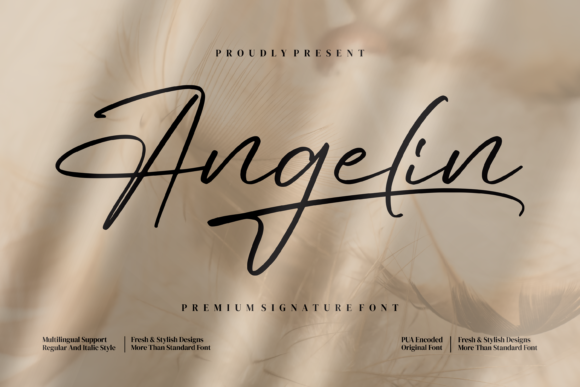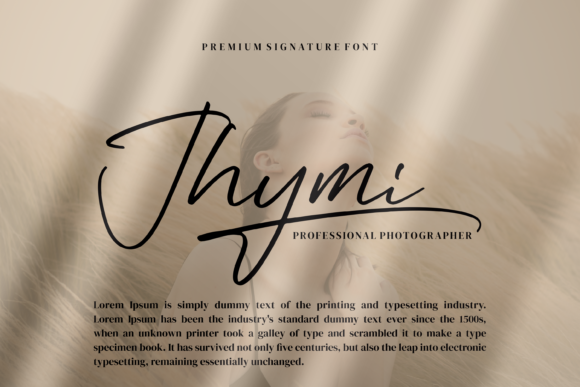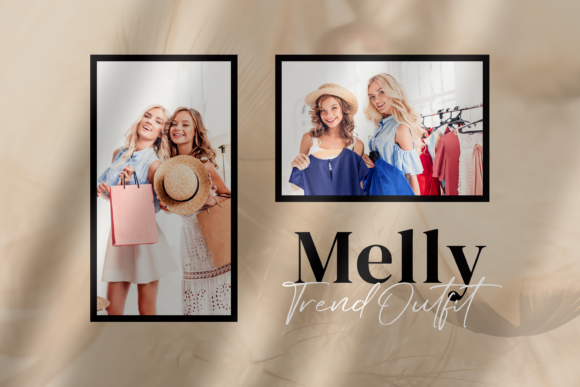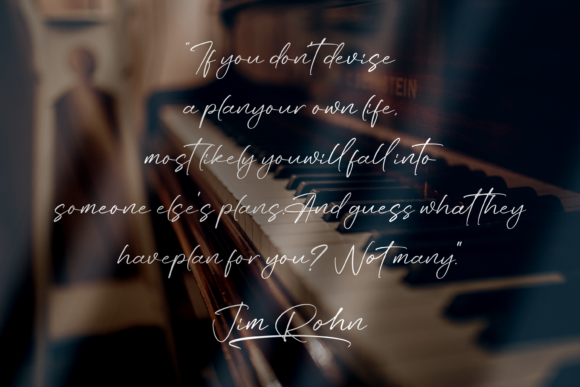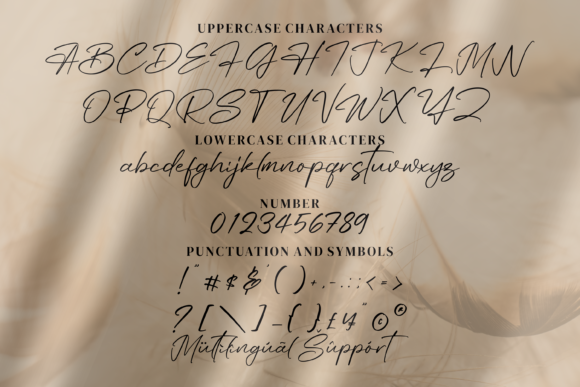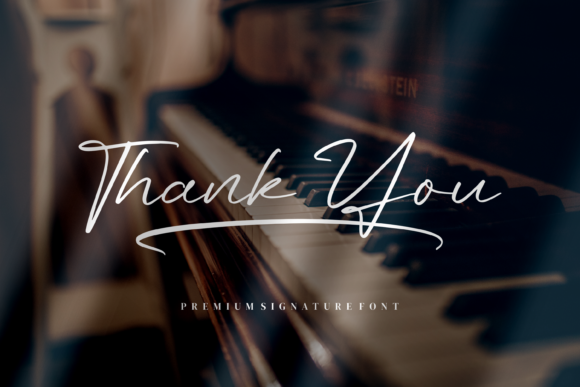
About Angelin Font
Angelin is a magical script font carefully created with a touch of elegance. This font will turn any creative idea into a true piece of art! Angelin is also PUA encoded which means you can access all of the glyphs and swashes with ease!Â